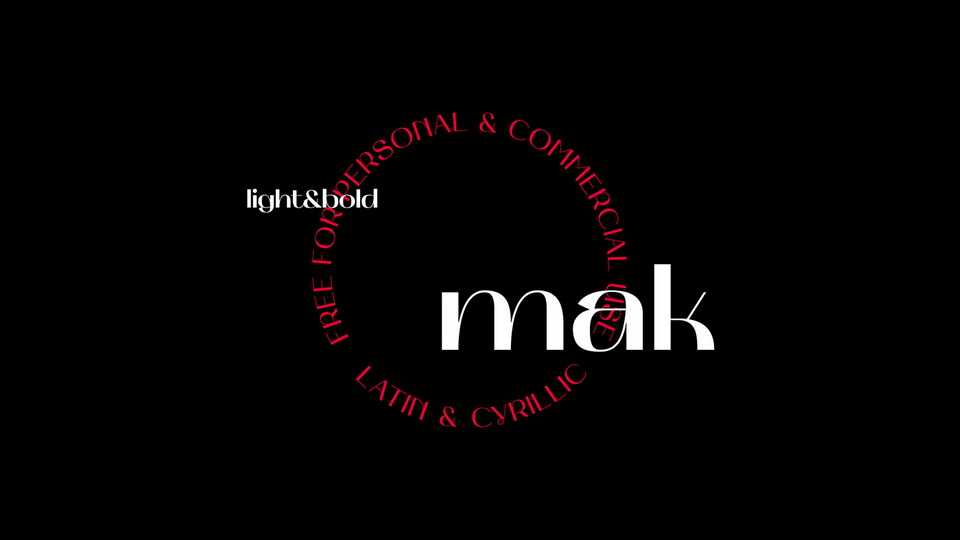
Download Mak typeface, an experimental contrast font family, inspired by Ukrainian underground music with the modern experimental sound of folk motifs.
Designer: Valentyn Tkachenko